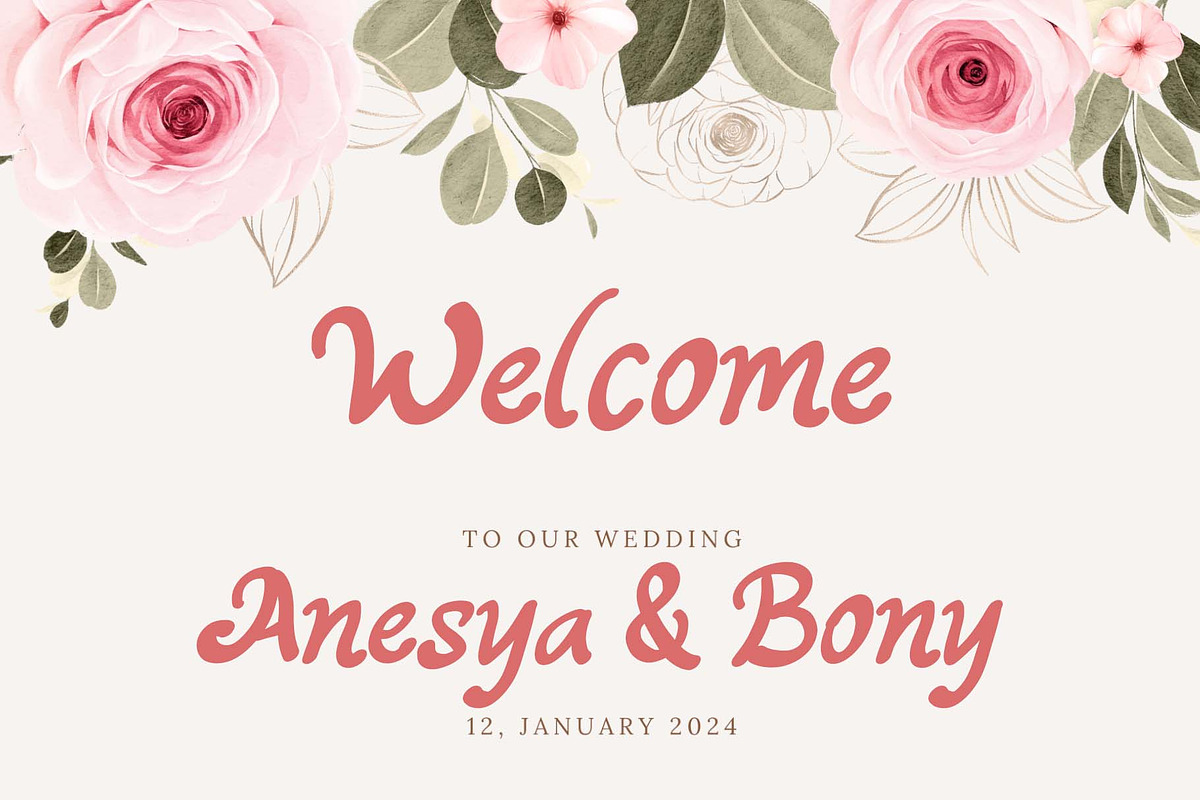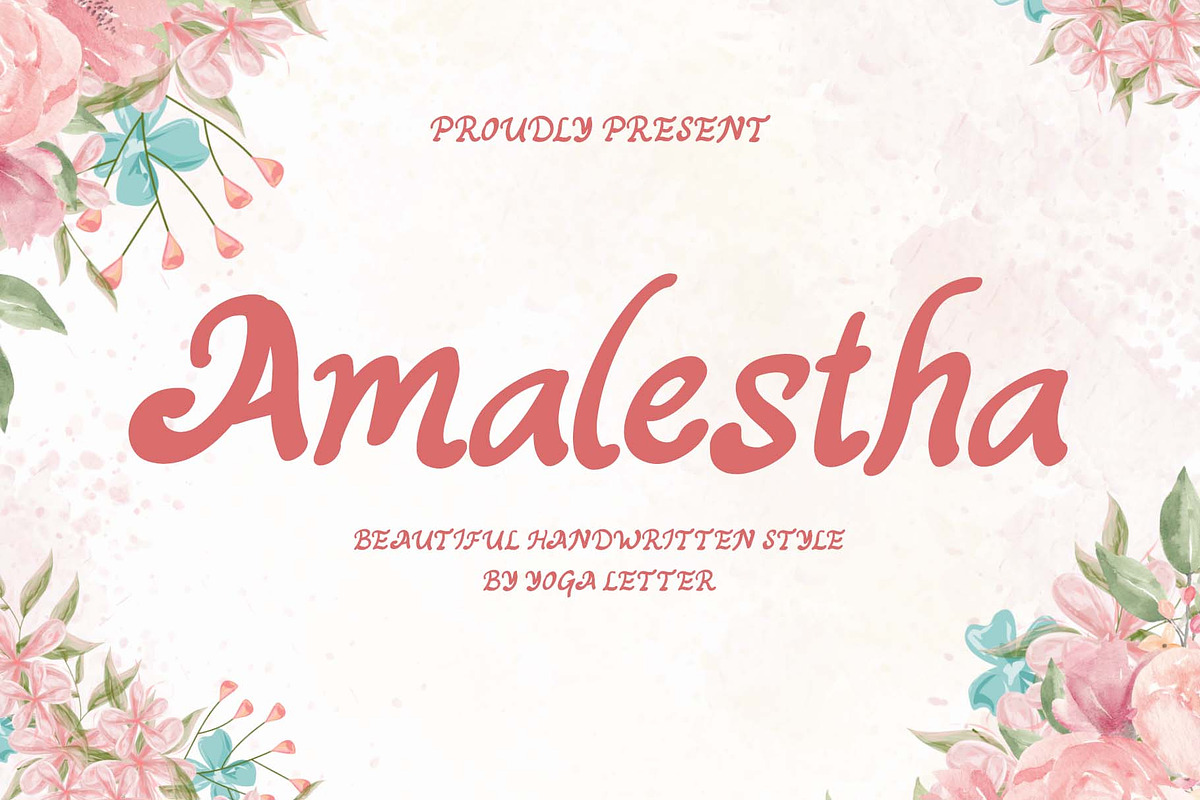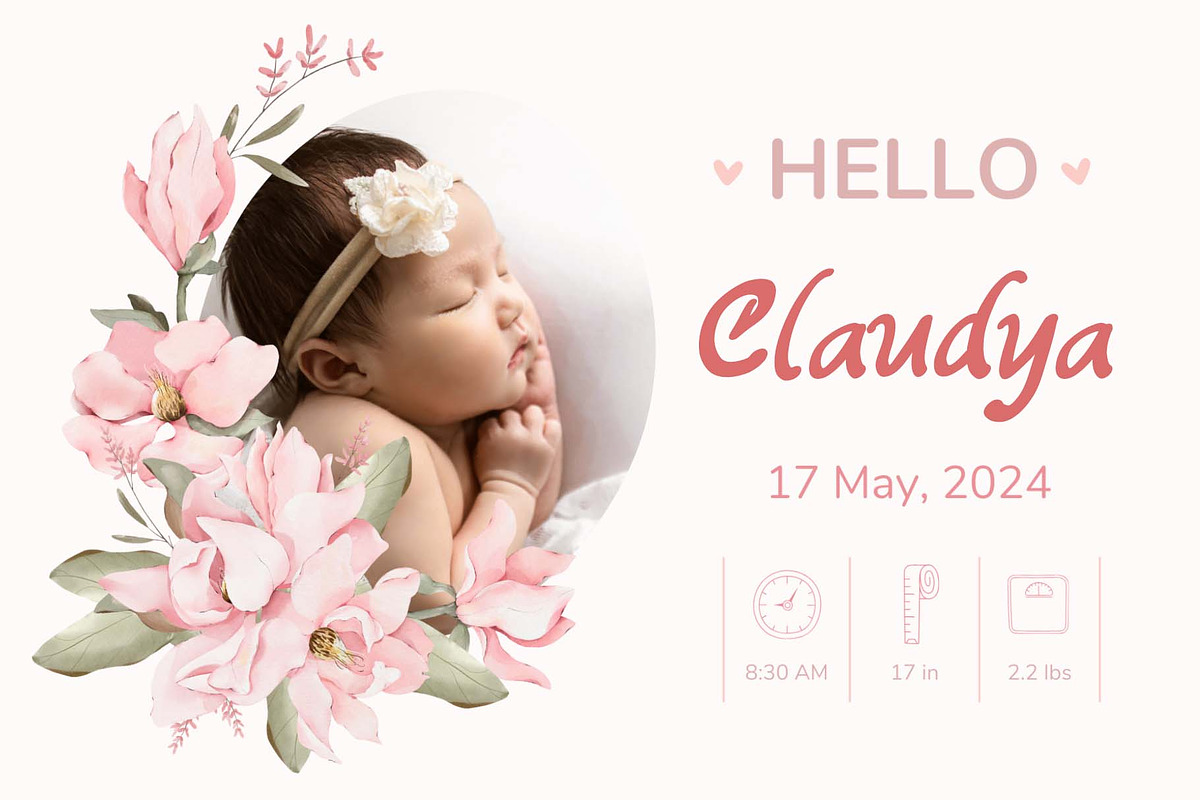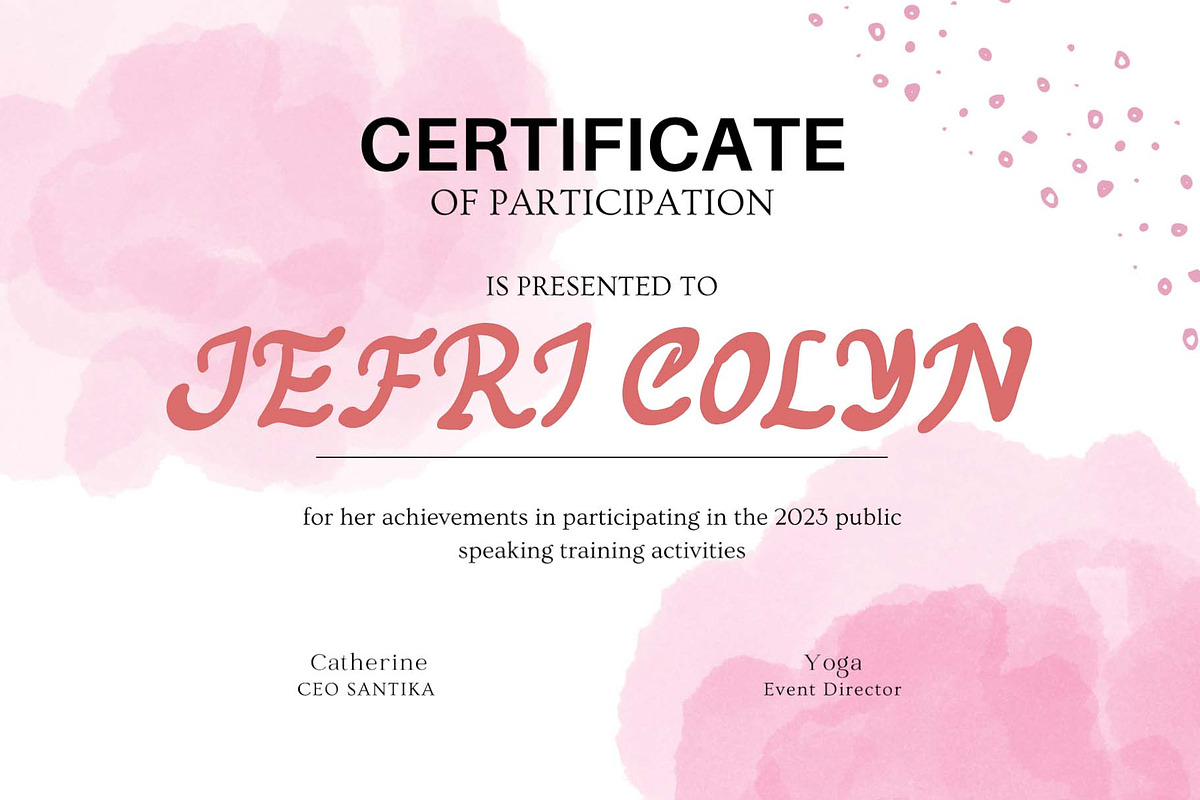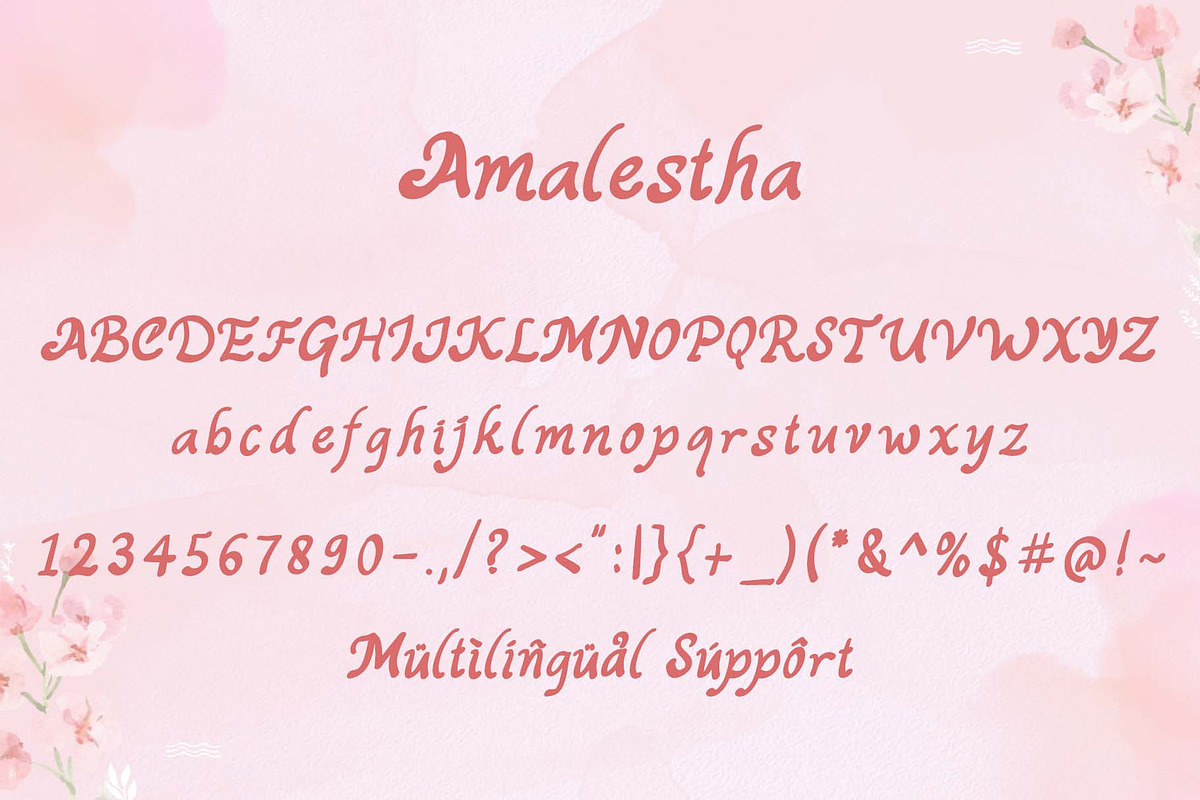
Amalestha
"Amalestha" is a beautiful and cute handwritten font. This font is equipped with uppercase, lowercase, numerals, punctuation, and multilingual support. Very suitable for weddings, invitations, engagements, certificates, stickers, banners, posters, prints, branding, logos, Christmas, Halloween, Valentine's, lovely, and others.